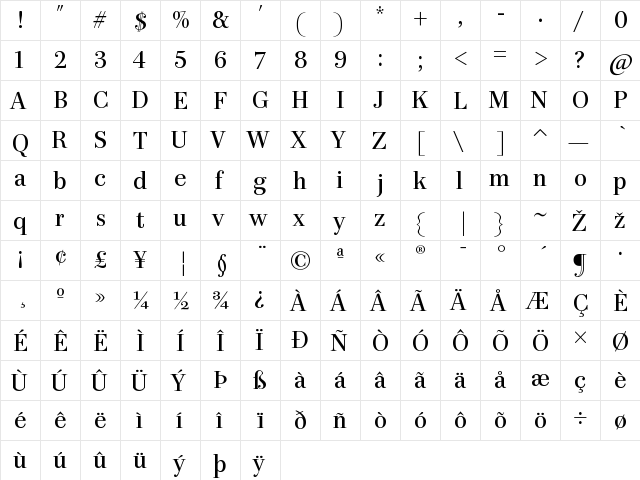
PB96TTP-Roman Regular
Design Context for PB96TTP-Roman Typeface
PB96TTP-Roman is a composed and adaptable typeface that performs quietly and consistently across a wide range of design contexts.